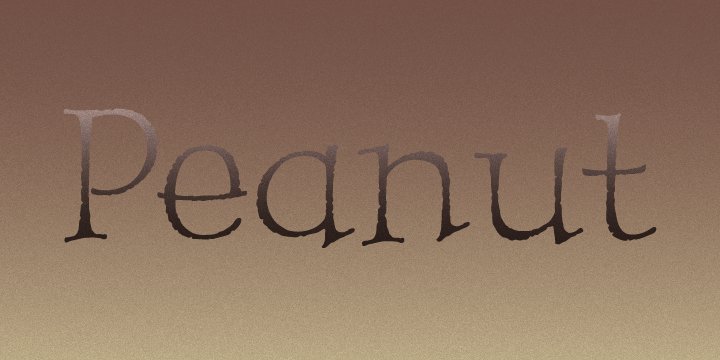
P22 Peanut
from IHOF
P22 Peanut is an IHOF font family with 4 styles.
Designed by: Michael Clark
Designed when: 2006
P22 Peanut
From acclaimed lettering artist and IHOF designer, Michael Clark, comes Peanut, a font full of bounce and liveliness.
Peanut is based on the traditions of the long revered Roman miniscule. The letters are unique in that they imply “youth” without relying on cliché child-like letterforms. The set contains the fonts Peanut Regular and Peanut Salted which features alternate letterforms.
Both fonts are combined into Peanut Pro with OpenType features.